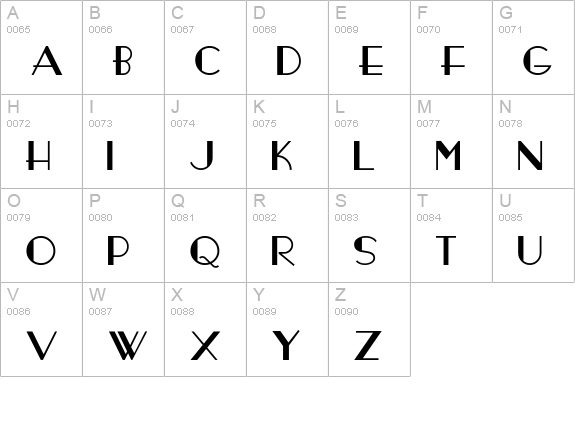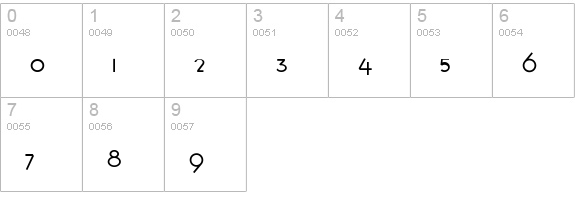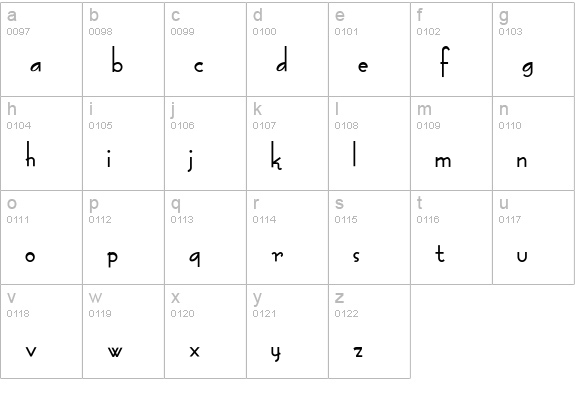
FashionVictim Font Details
Introducing FashionVictim, a breathtakingly stylish font that is sure to make a statement in any design project. With its sleek and elegant lines, this font exudes a sense of high fashion and sophistication. Each letter has been carefully crafted to perfection, creating a seamless and visually stunning typeface. But what sets FashionVictim apart from other fonts is that it is not only visually stunning, but it is also free! That's right, you can download this font for absolutely no cost at FontsMarket.com. It's the perfect choice for designers on a budget or anyone looking to add a touch of glamour to their projects without breaking the bank. Whether you're working on a fashion magazine layout, a luxurious branding project, or simply looking to elevate your social media posts, FashionVictim is the perfect companion. Its versatility allows it to be used in a variety of design contexts, always adding that extra touch of elegance and style. Don't miss out on this incredible opportunity to own a font that combines beauty and affordability. Download FashionVictim today at FontsMarket.com and let your creativity soar to new heights.